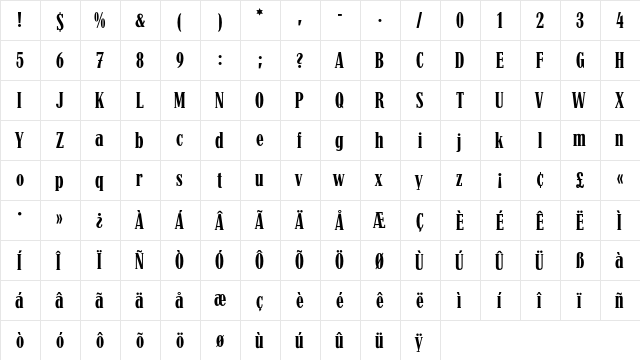
CandidaEF MediumCond
Design Context for CandidaEF Typeface
CandidaEF is a composed and adaptable typeface that performs quietly and consistently across a wide range of design contexts. The condensed width makes it efficient for tight spaces without sacrificing legibility.
Pro Tip: Pair CandidaEF with a font of contrasting weight or personality to build a more expressive typographic hierarchy.